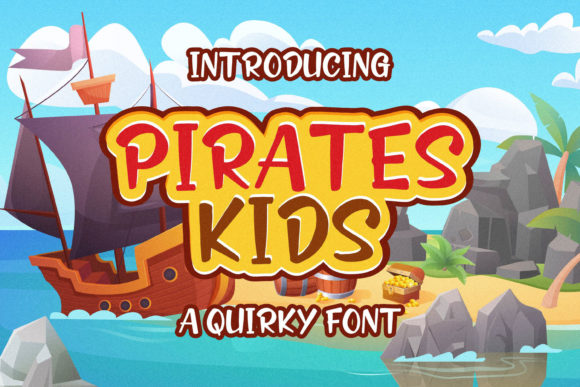
Welcome to the world of Pirates Kids Font, a display font family designed to spark creativity and elevate your designs to new heights. Crafted by the skilled hands of afikastudio, Pirates Kids is a playful and captivating font, perfect for adding a touch of whimsy to your projects.
Whether you're a seasoned designer or just starting out, Pirates Kids is a must-have in your digital toolbox. With its extensive character set and broad range of applications, this font is an indispensable asset for any design endeavor.
First and foremost, Pirates Kids excels as a display font. Its bold and playful strokes make it perfect for creating eye-catching logos, headlines, and posters. Imagine your brand name or product tagline jumping off the page, demanding attention in a sea of bland typography. With Pirates Kids, your designs will leave a lasting impression, ensuring your message is heard loud and clear.
But Pirates Kids' versatility doesn't stop there. Its quirky charm lends itself beautifully to branding projects, homeware designs, product packaging, and more. Envision your products adorned with unique and memorable typography that sets them apart from the competition. Pirates Kids has the power to transform ordinary objects into extraordinary works of art.
For those with a passion for typography, Pirates Kids offers endless creative possibilities. Its distinct style adds character to quotes, posters, and greeting cards, making them truly one-of-a-kind. Imagine your words taking on a life of their own, captivating your audience with their playful energy.
Furthermore, Pirates Kids shines in the world of fashion. Its playful strokes make it an ideal choice for t-shirt designs, shopping bags, and other apparel. Picture your designs becoming the talk of the town, attracting compliments and sparking conversations wherever you go. With Pirates Kids, your style will be the envy of all.
But Pirates Kids isn't just about aesthetics; it's also highly functional. Its crisp and clean lines ensure readability, even in small sizes. Whether you're creating book covers, name cards, or invitation cards, Pirates Kids will convey your message with clarity and precision.
And if you're looking to add a touch of luxury to your projects, Pirates Kids is the perfect font for the job. Its premium signature taste elevates any design, giving it a sophisticated and refined look. From labels and photography to watermarks and special events, Pirates Kids will add a touch of elegance that sets your work apart.
With Pirates Kids, your creative potential is limitless. Its quirky charm, versatility, and readability make it the perfect choice for designers of all levels. So why wait? Dive into the world of Pirates Kids today and unlock the full potential of your creativity.